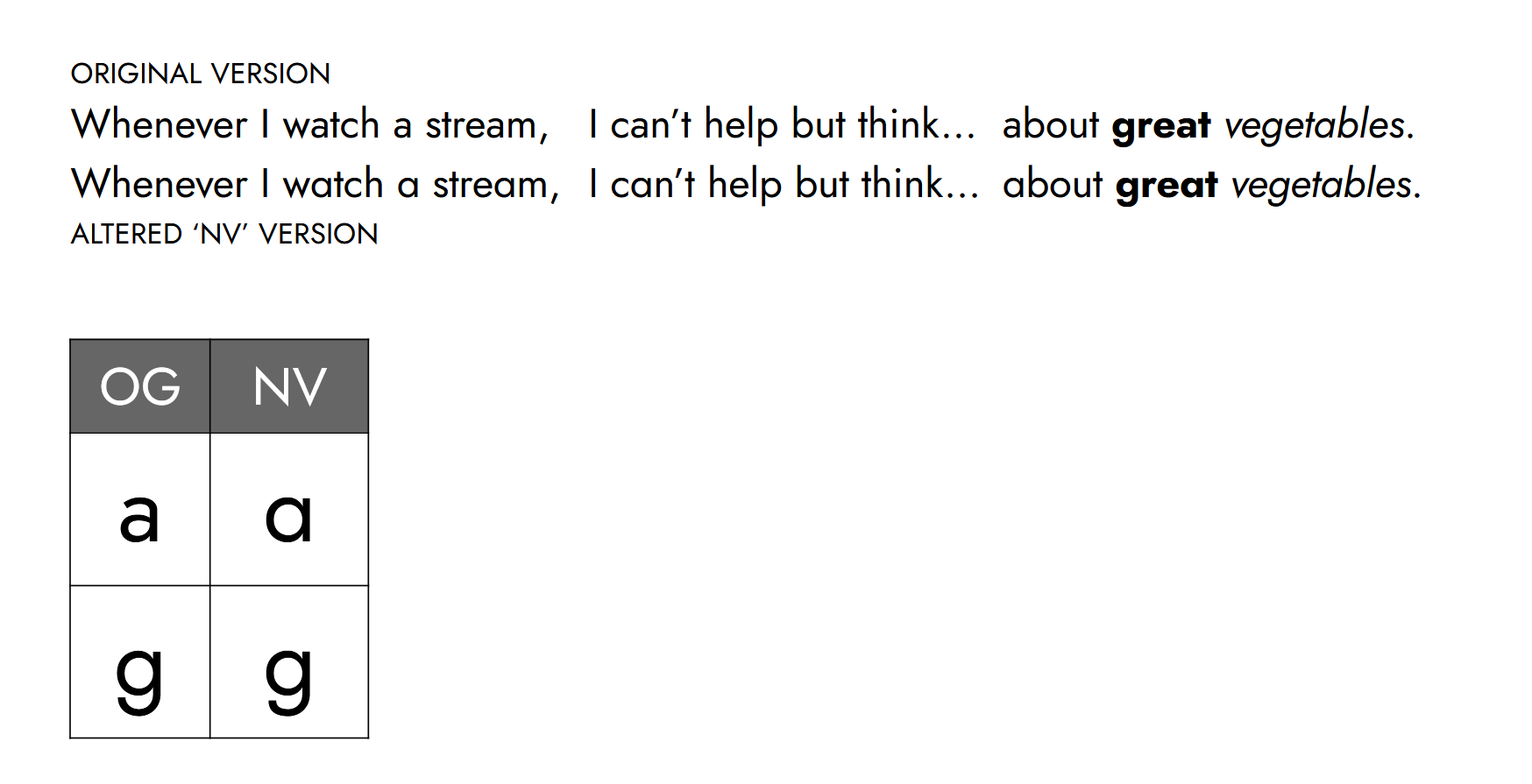
What is this?
NV Jost is a Jost variant, with a slightly altered lowercase G and single storey a (similar to Futura, only accessible via OT feature on the original font). This is a remix that I personally prefer.
Example
- NV Jost: Best on Kobo. With adjusted line-height, an altered lowercase G and single storey a.